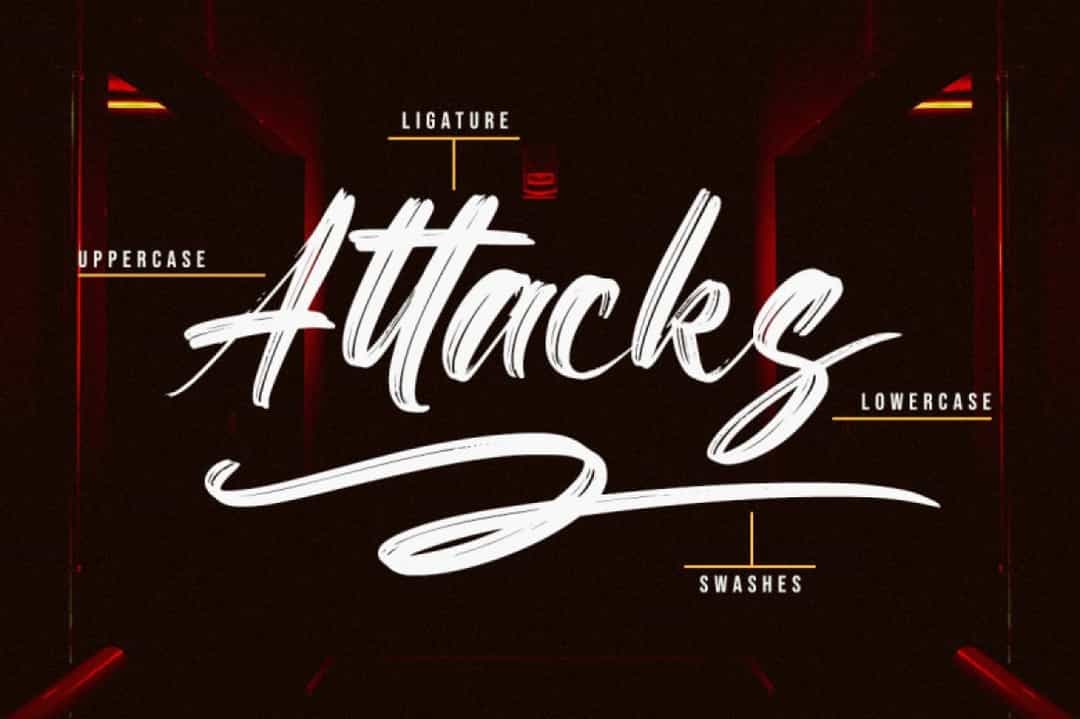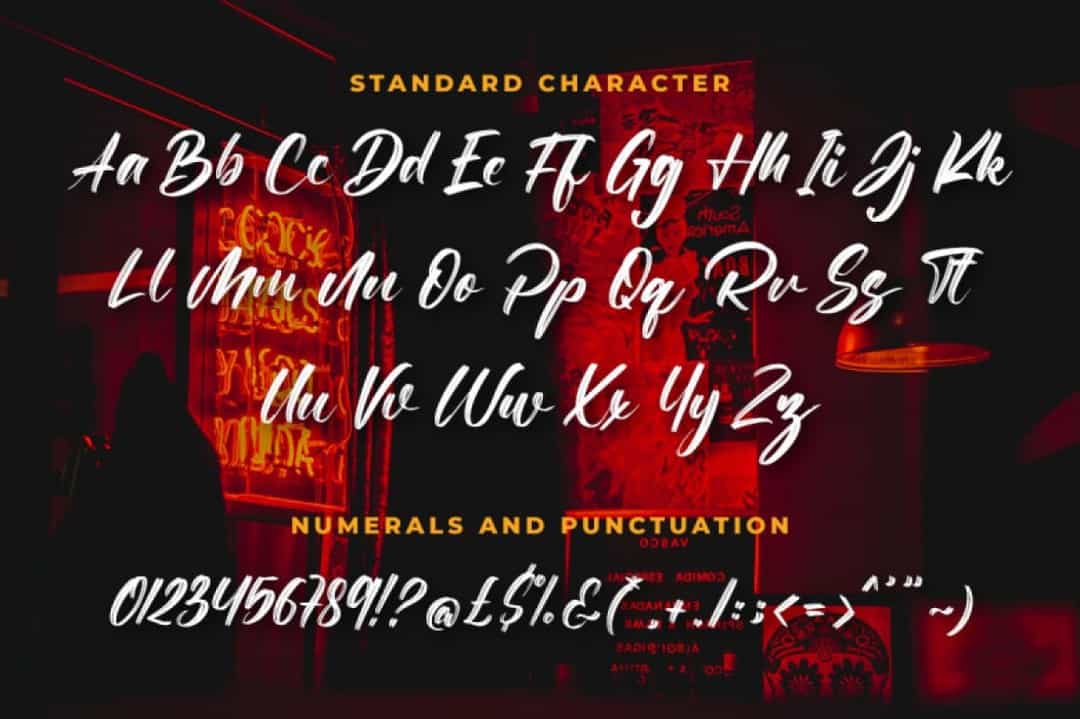
Attacks is a stunning handwritten script font designed to add character and nostalgia to any layouts it is featured in. This font has been described as both powerful and confident while adding warmth.